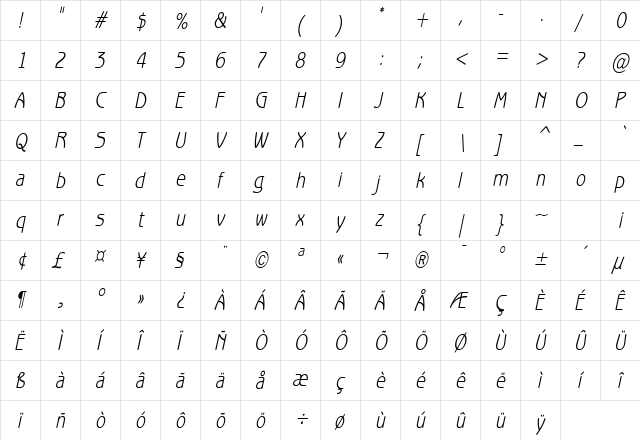
Beagle Condensed Italic Font Preview
Design Context for Beagle Condensed Typeface
Beagle Condensed is a composed and adaptable typeface that performs quietly and consistently across a wide range of design contexts. The dynamic lean of this cut emphasises speed and emphasis in any layout. The condensed width makes it efficient for tight spaces without sacrificing legibility.
Pro Tip: Try Beagle Condensed for annotation and caption copy alongside an upright companion — the contrast in angle creates a dynamic but ordered typographic system.